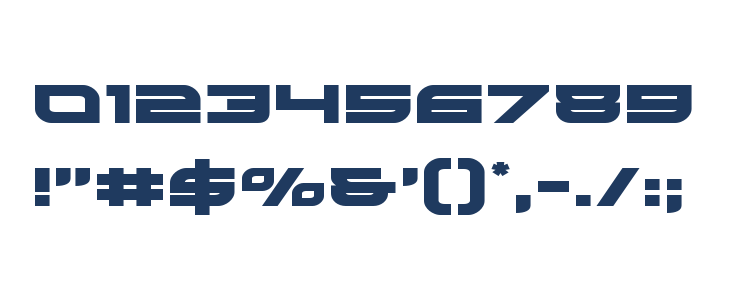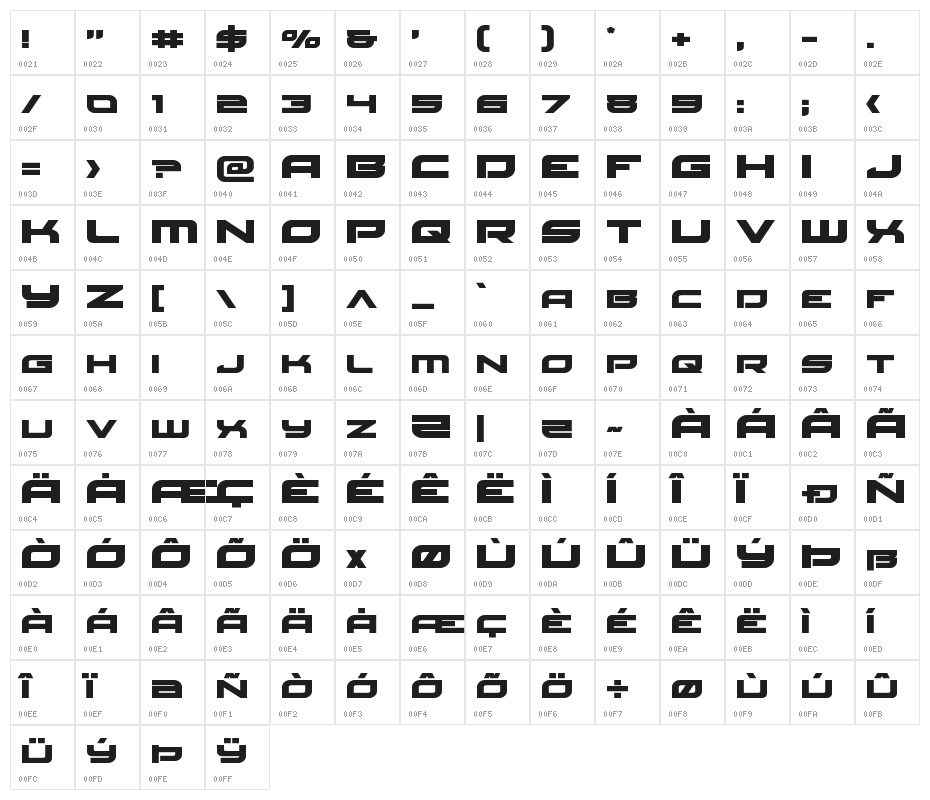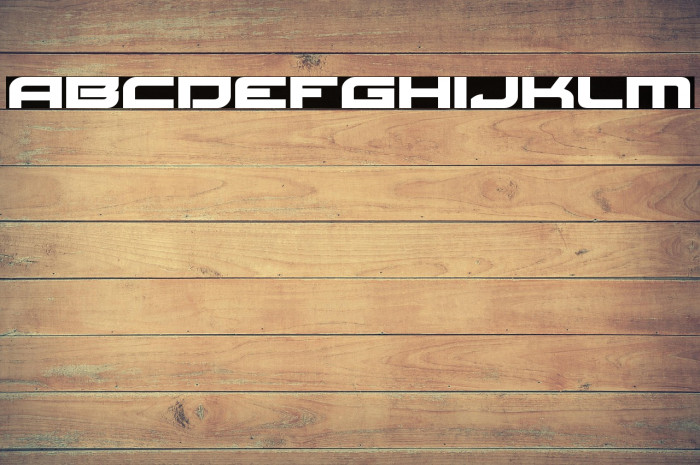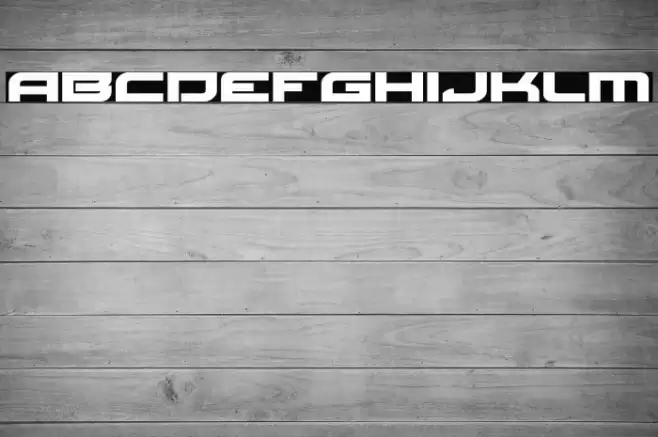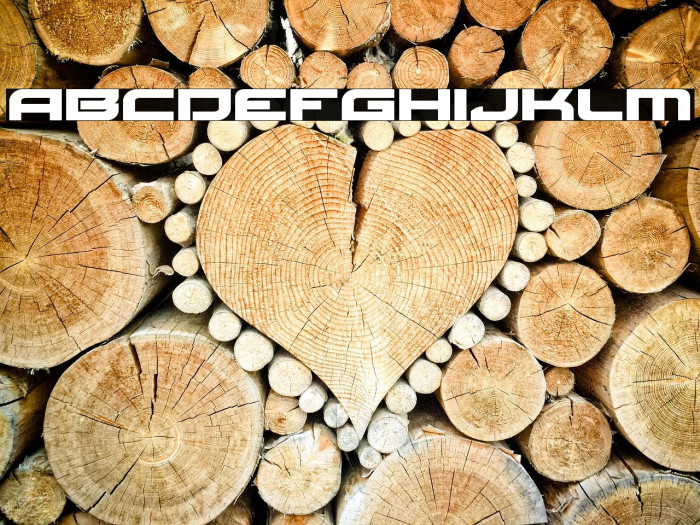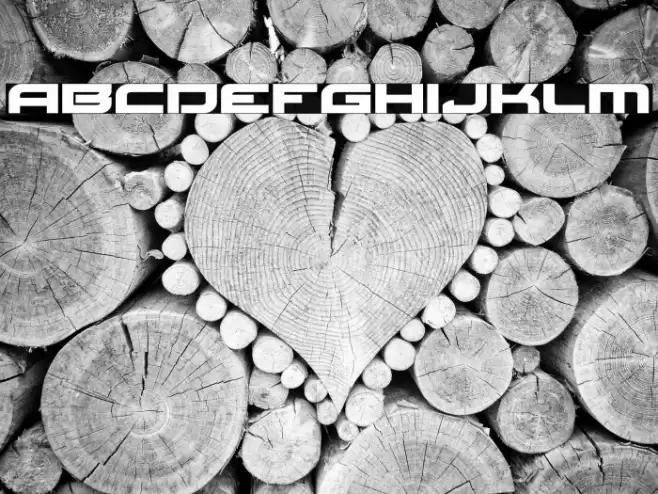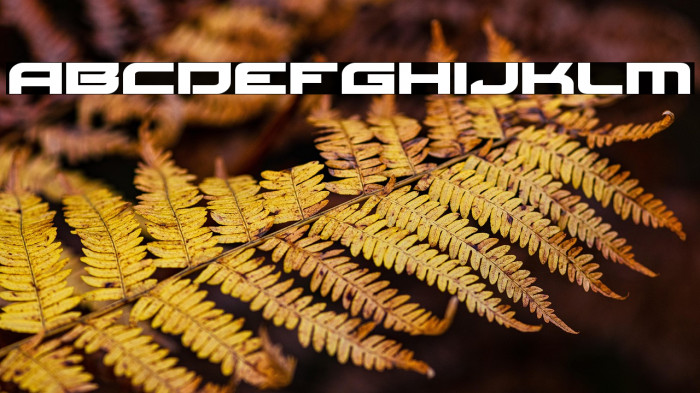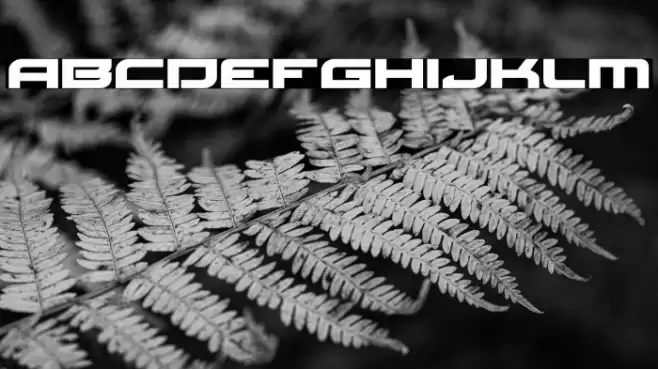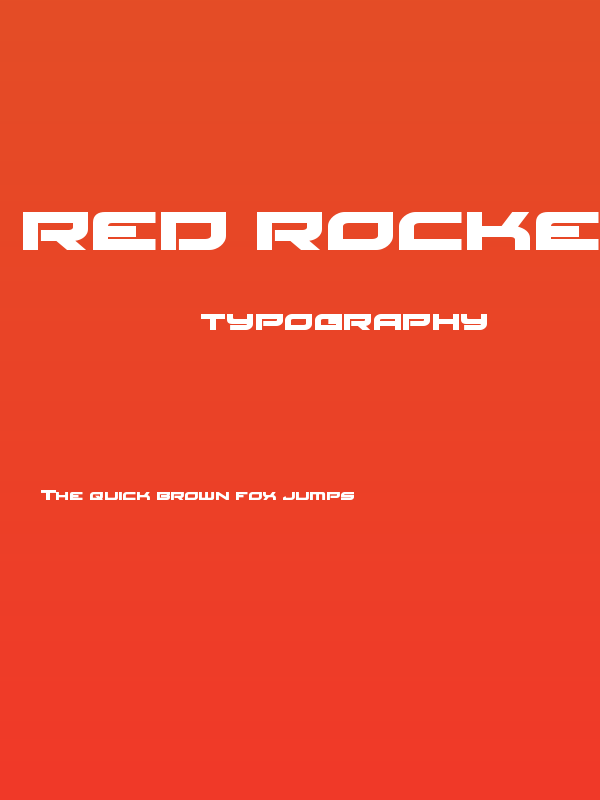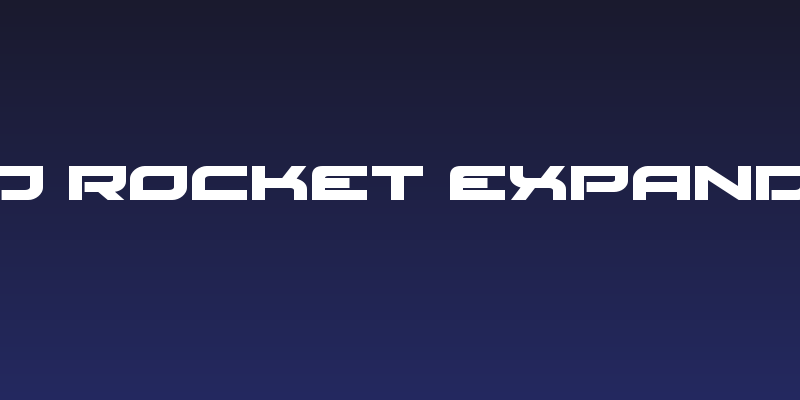
Red Rocket Expanded Font
Red Rocket Expanded Description
This font features a bold and futuristic design with a distinctly geometric structure. The characters are wide and have a strong presence, making them ideal for attention-grabbing headlines. The angular shapes and sharp edges give it a modern and tech-inspired feel. The uppercase and lowercase letters maintain a consistent style, with a uniform width that enhances readability. The numerals and special characters are designed to match the overall aesthetic, ensuring a cohesive look across all text elements.
| Proposed Projects | Ideal for technology branding, sci-fi themed projects, video game titles, and modern advertising campaigns. |